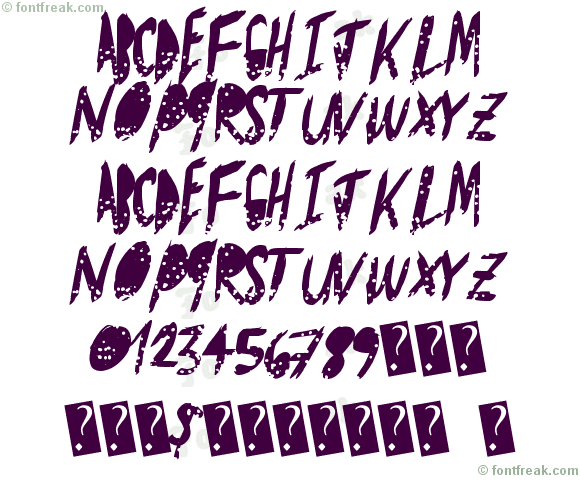
WholeSpace
About WholeSpace
WholeSpace by XEROGRAPHER FONTS is a distinctive display font that effortlessly combines playful charm with bold expression. Released in 2012, this freeware typeface features a unique, hand-drawn aesthetic that captivates viewers with its irregular stroke weight and whimsical character forms. The font's design showcases a blend of thick and thin lines, providing a sense of dynamism and movement. Its generous spacing allows for clear readability, making it an excellent choice for various design projects.
WholeSpace is particularly well-suited for creative applications such as movie posters, where its eye-catching style can draw attention and convey a sense of excitement. It also shines in the realm of restaurant menus, adding a fun and inviting touch that enhances the dining experience. Additionally, the font is perfect for children's book covers, where its playful nature resonates with younger audiences. Graphic designers looking to add a unique flair to branding materials will find WholeSpace to be an appealing choice, as it can help convey a brand's personality effectively. Content creators can also leverage this font for social media graphics, ensuring their posts stand out in crowded feeds.
Targeting graphic designers, small business owners, and content creators, WholeSpace is a versatile tool for those seeking to make a memorable impact through typography. Its unique characteristics and free availability make it an attractive option for anyone looking to elevate their design projects.
What sets WholeSpace apart is its ability to blend artistry with functionality. The font not only captures attention but also communicates a sense of joy and creativity. With WholeSpace font free download, users can easily incorporate this imaginative typeface into their work, ensuring their designs resonate with audiences and leave a lasting impression.